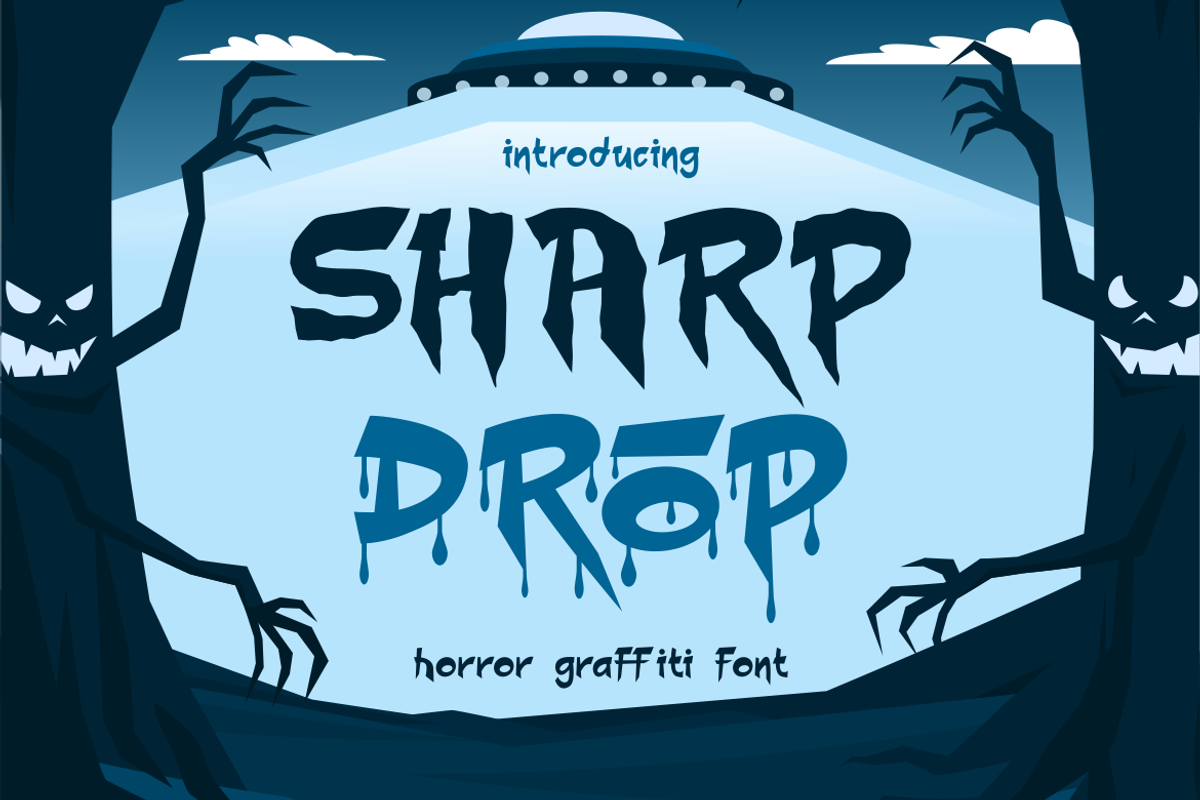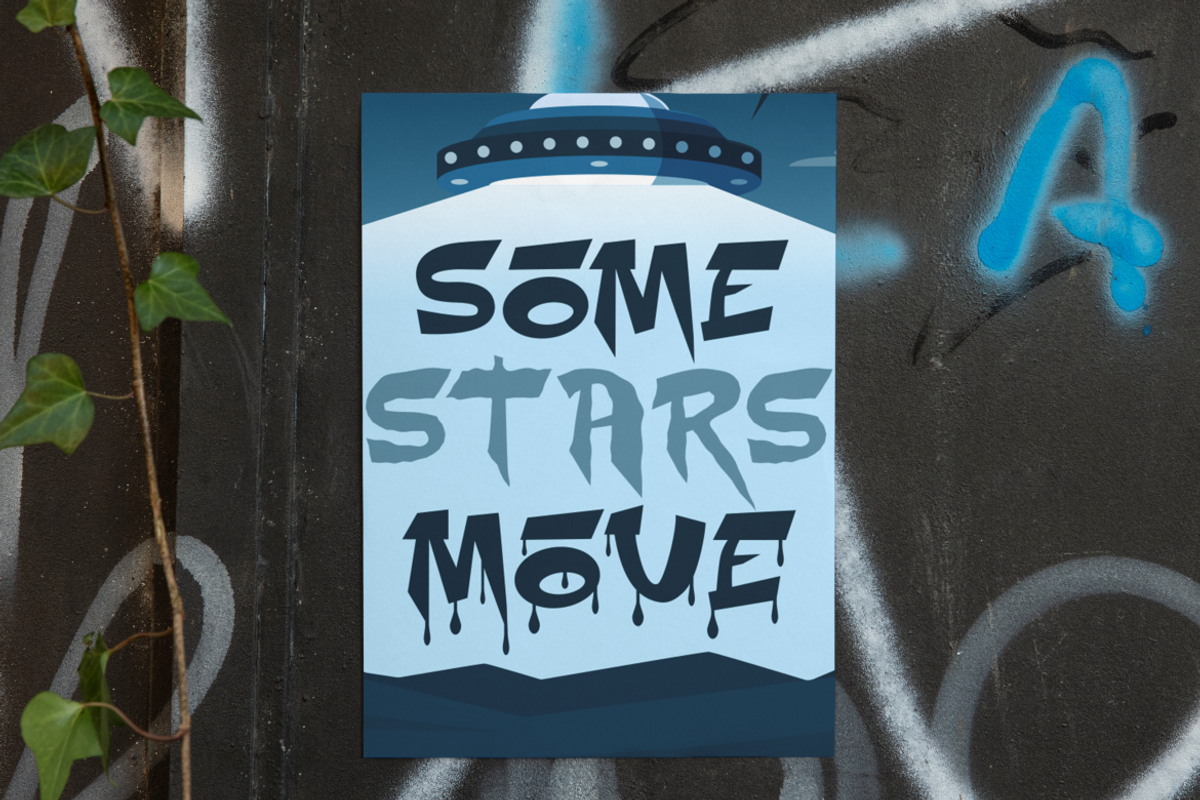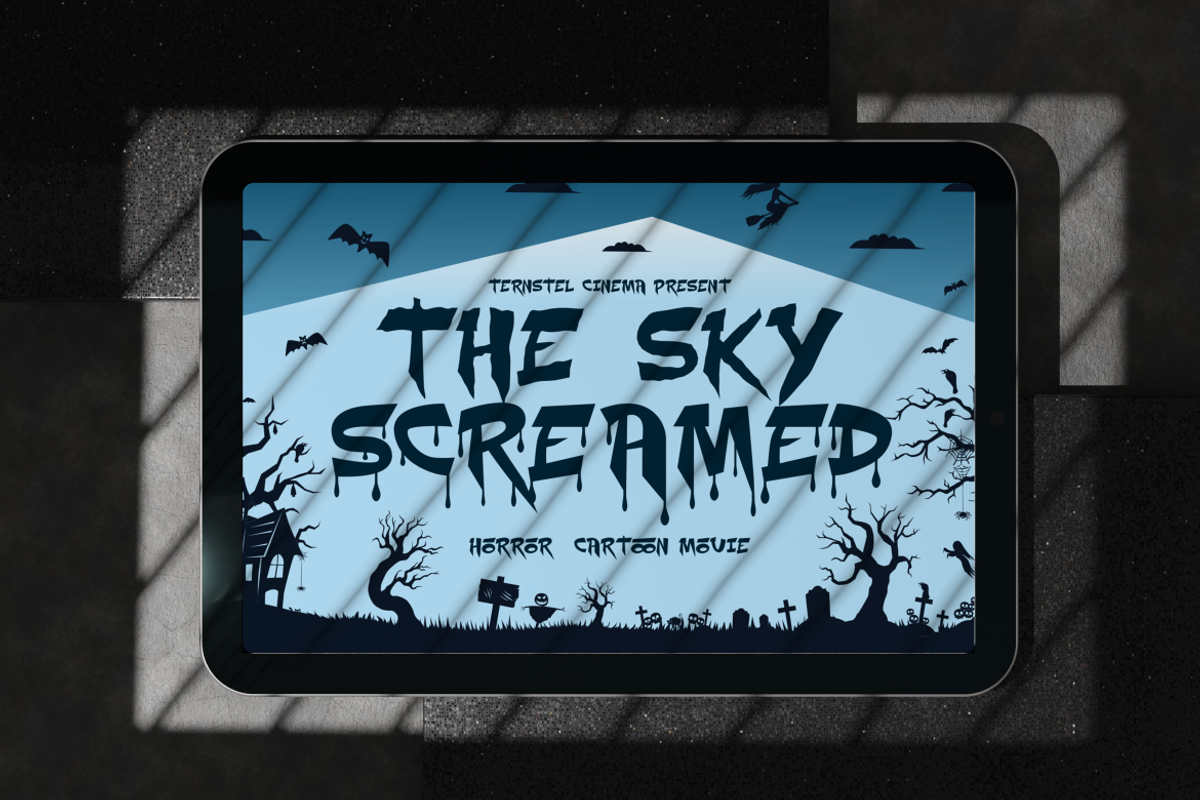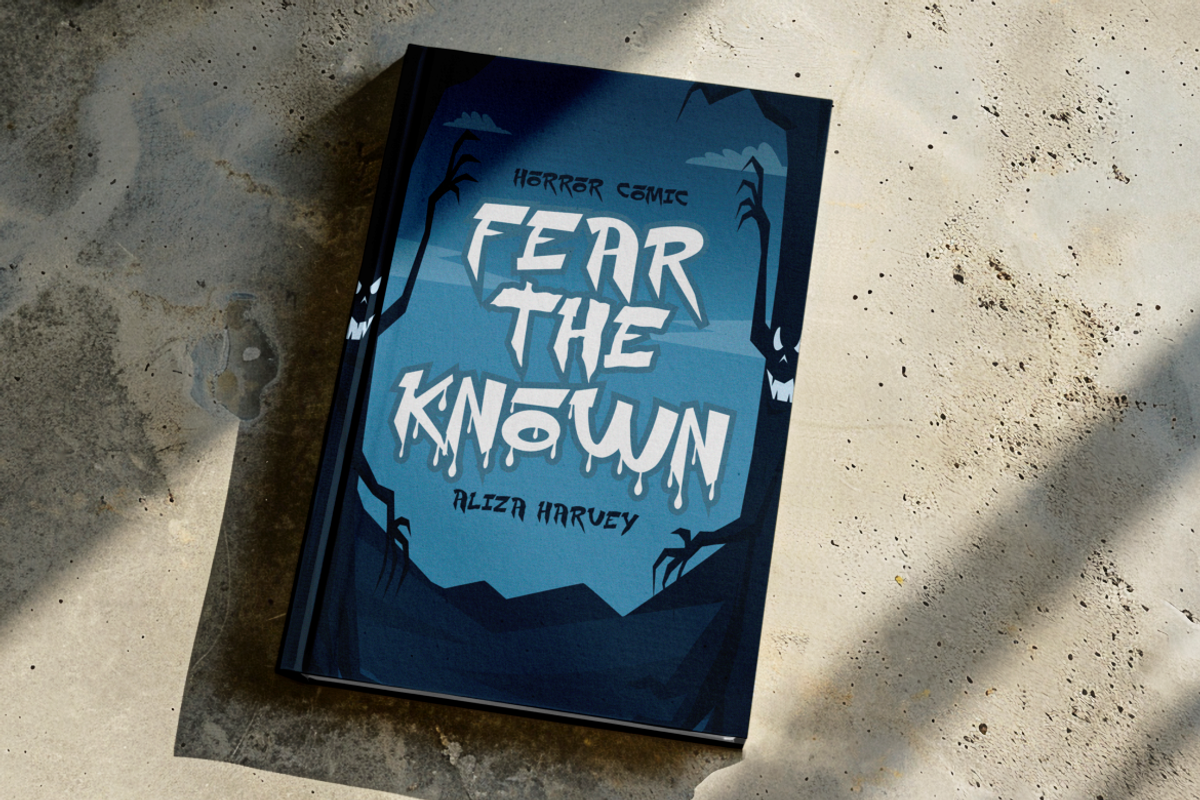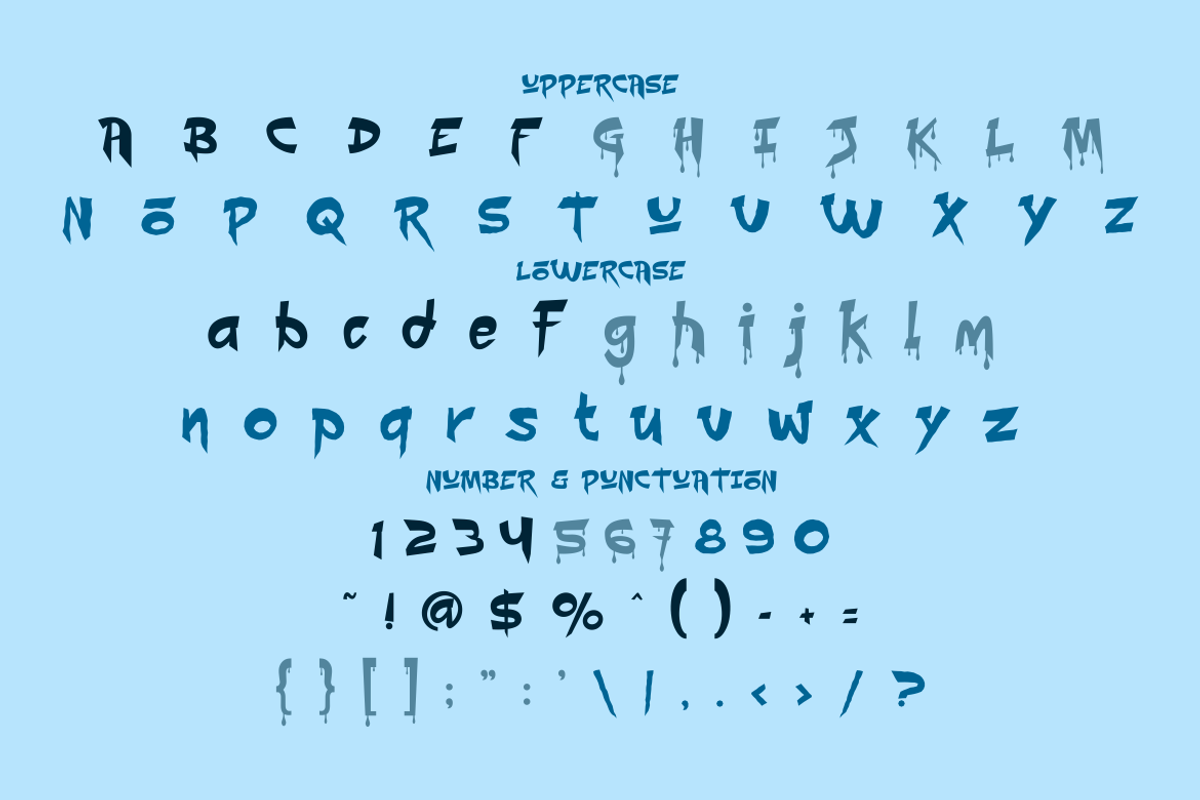
Sharp Drop Horror Graffiti Font
Sharp Drop Horror Graffiti Font brings a terrifying edge to your design projects. Its letterforms are built with jagged, broken shapes that mimic torn metal and ripped shadows, giving every word a menacing presence. Some characters feature dripping effects, resembling fresh paint or blood, which enhances the street-inspired horror look. The graffiti aesthetic feels raw and rebellious, while the sharp cuts add a sinister, scary twist. The combination of bold strokes, uneven structures, and dripping finishes makes this font perfect for any project that needs an eerie and edgy feel.
This font is ideal for horror movie posters, spooky comic titles, and Halloween-themed branding. It also works great on graffiti-style logos, urban street art designs, game covers, packaging, and sticker graphics. The layout versatility allows it to be used for bold titles, creepy book covers, or even invitation cards with a scary twist. Whether you want to craft a chilling headline, create a haunting visual identity, or design striking merchandise, Sharp Drop Horror Graffiti Font ensures your message is unforgettable. It blends street culture with horror vibes, making it a must-have font for designers who love dark, dramatic, and eye-catching typography.